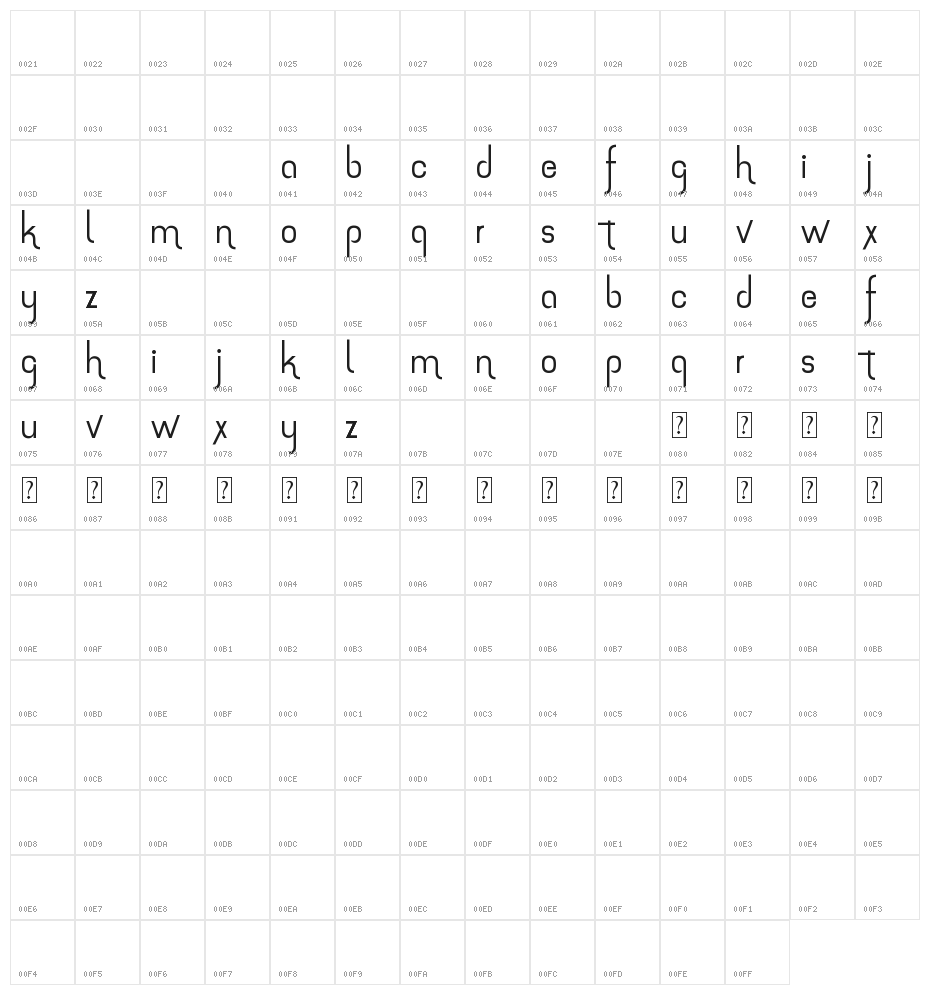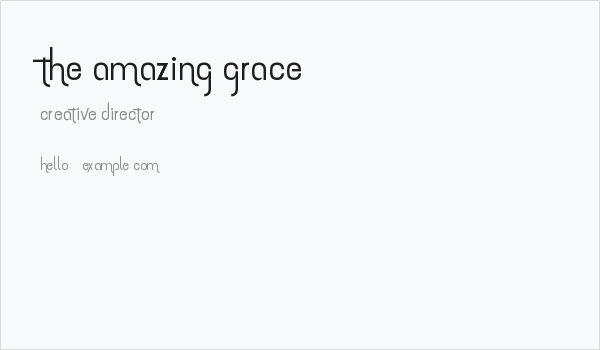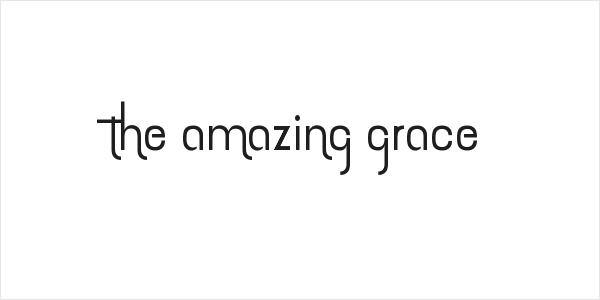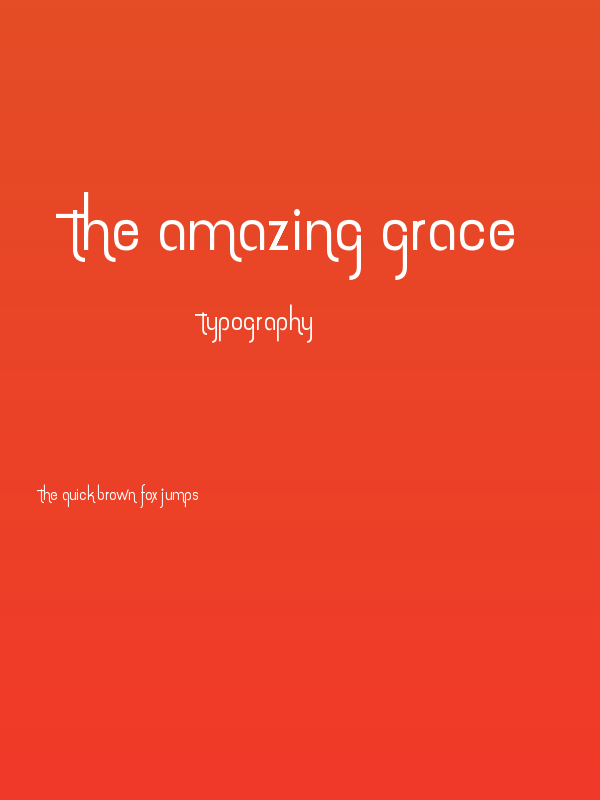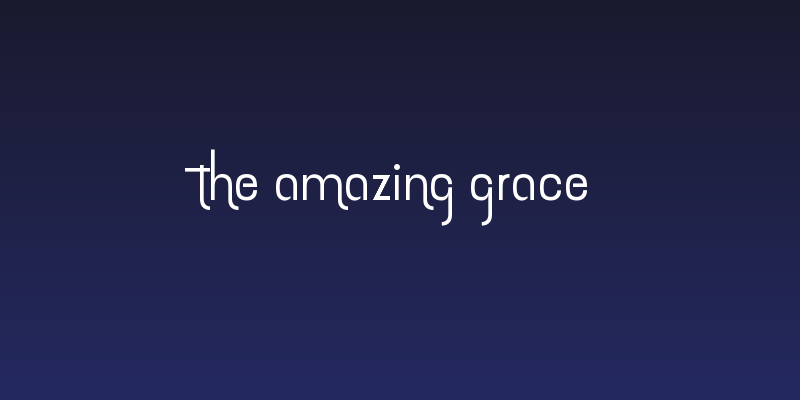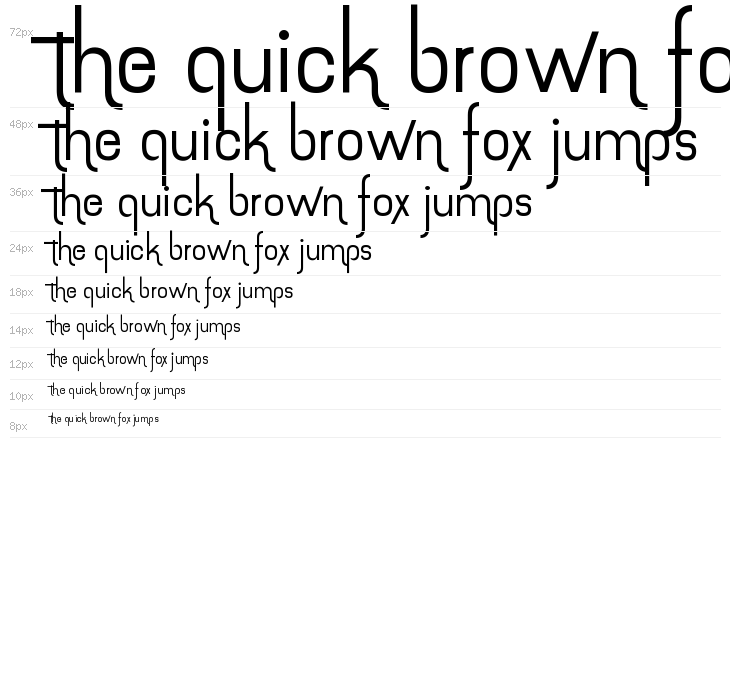
the amazing grace Font
the amazing grace Description
This font features a modern and sleek design with a unique twist on traditional letterforms. The characters are elongated with a consistent stroke width, giving it a clean and contemporary appearance. The lowercase letters have distinctive curves and loops, particularly noticeable in the 'g', 'j', and 'y', which add a touch of elegance. The font maintains a geometric structure, making it highly legible while still offering a stylish flair. Its minimalistic design is perfect for creating a modern and sophisticated look in various design projects.
| Proposed Projects | Ideal for branding, advertising, web design, and editorial layouts where a modern and clean aesthetic is desired. |